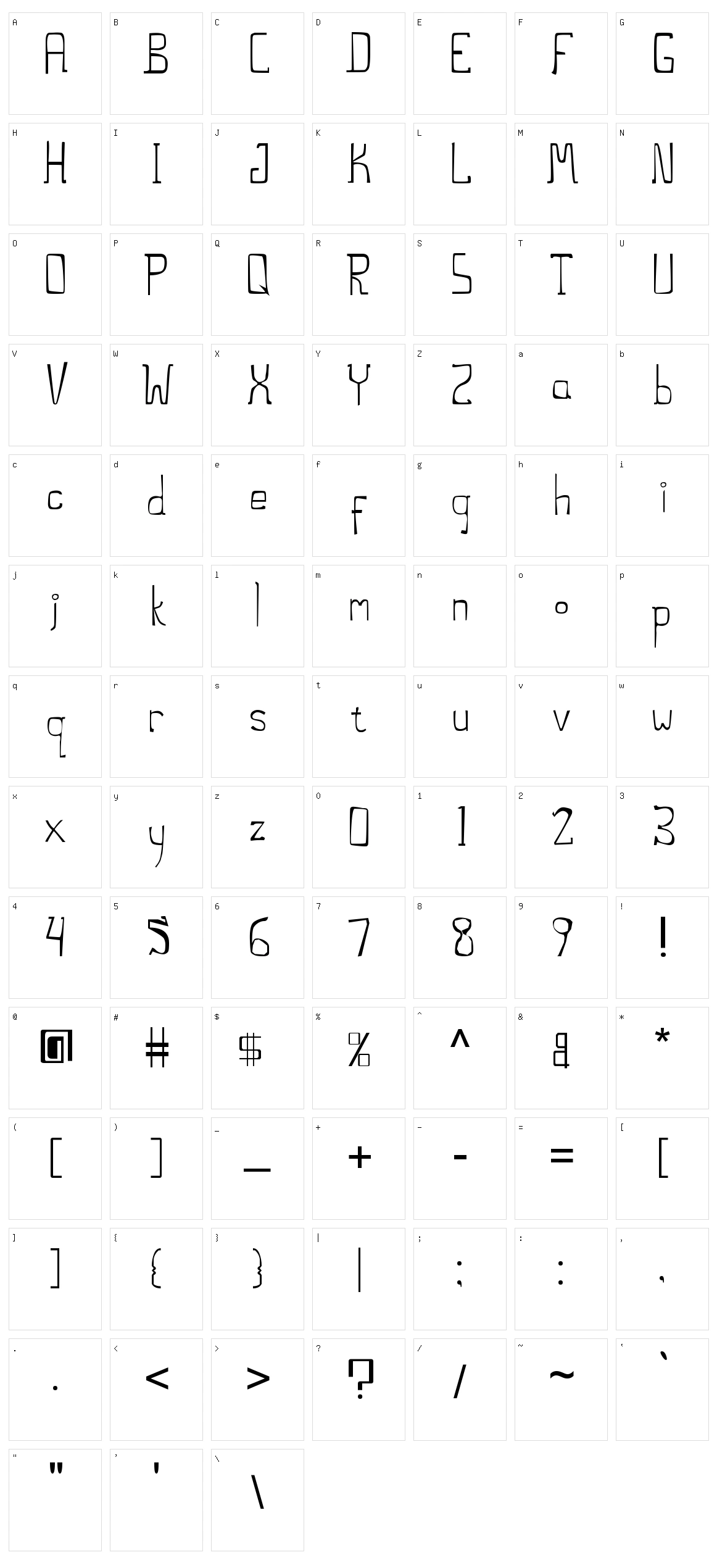
THE STILTS
this font is not complete, since i'm to lazy to finish it and render it.
the symbols and sign using glyphs from my other previous font that i thought it would fit.
but maybe in the future there would be a finished and complete Version of this font
Note#2: This typeface is ideal for logos and general design.
It isn't very suitable to be used with word-processors as it lacks some symbols and letters.
best use in Photoshop, with a Strong Formating for the fonts.